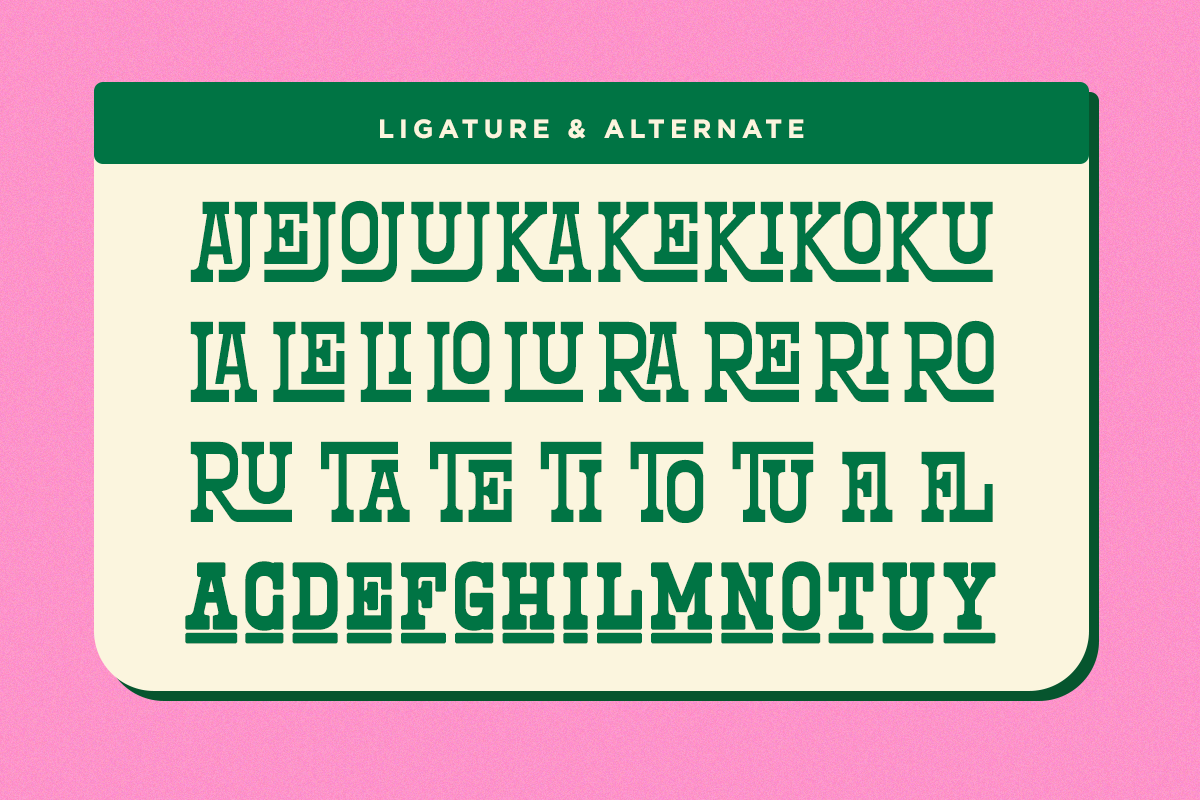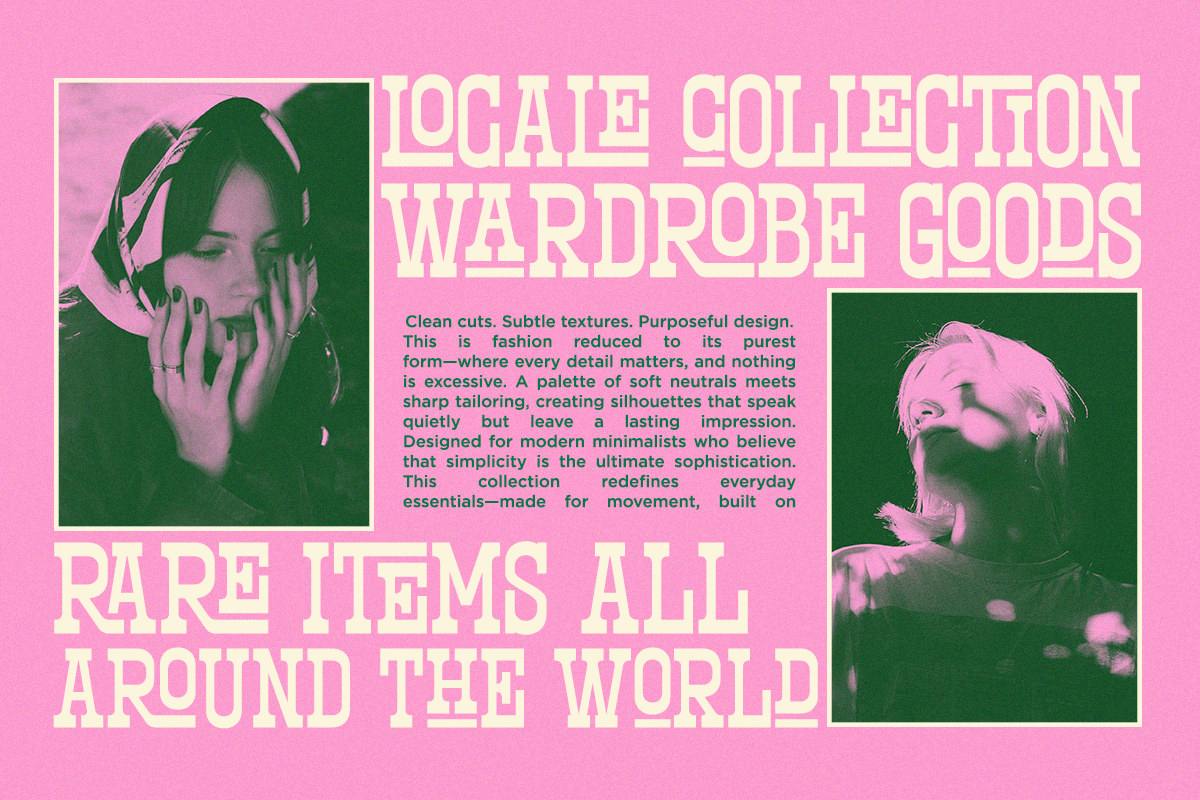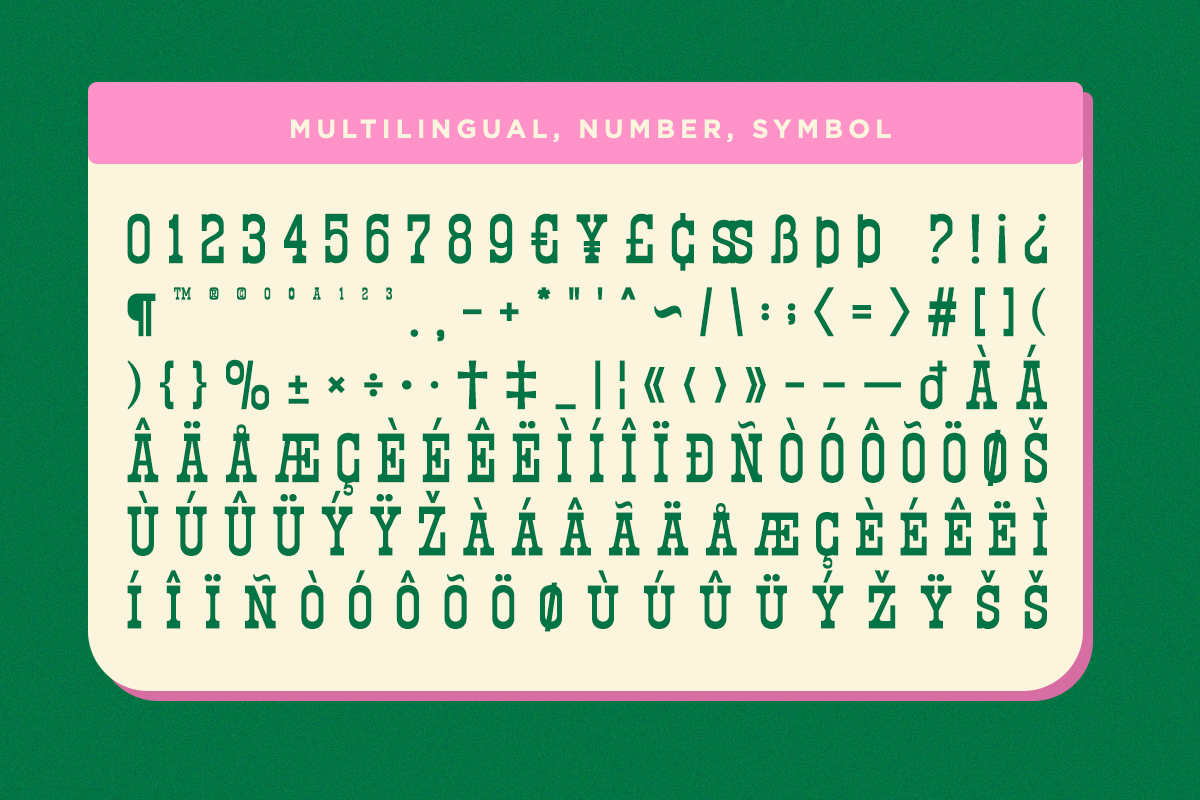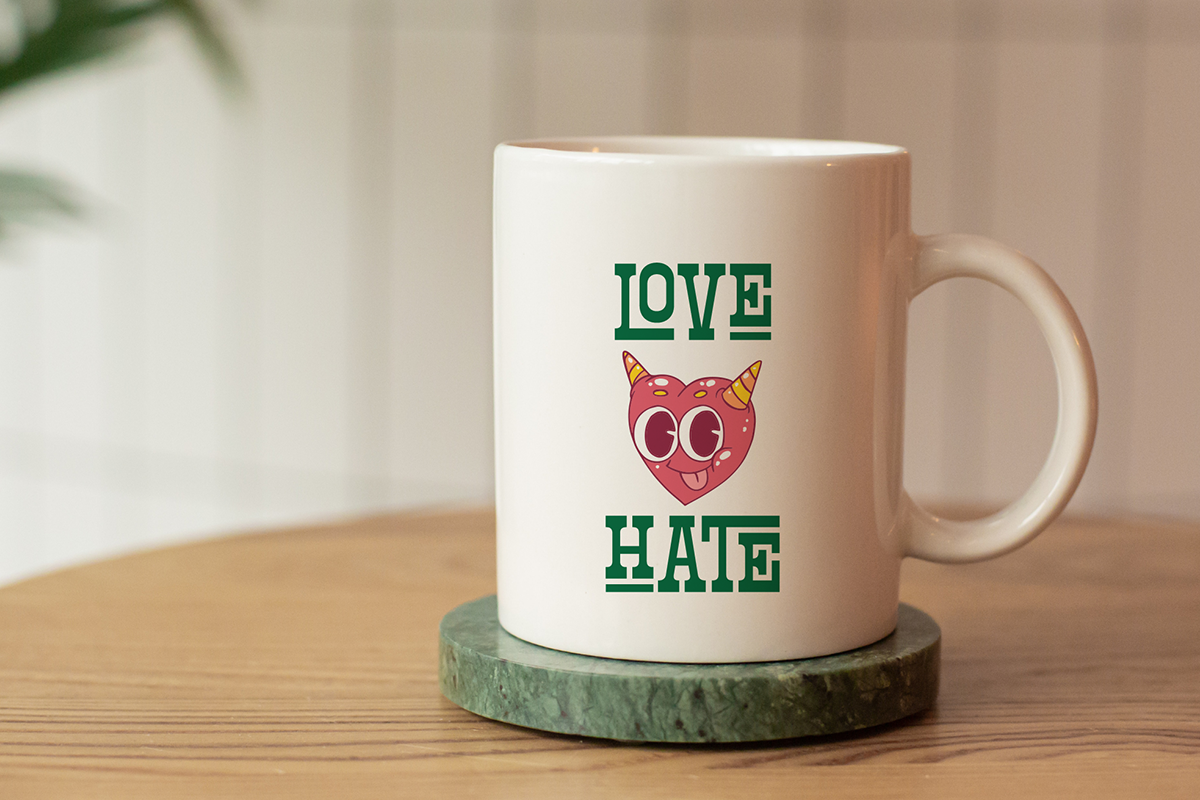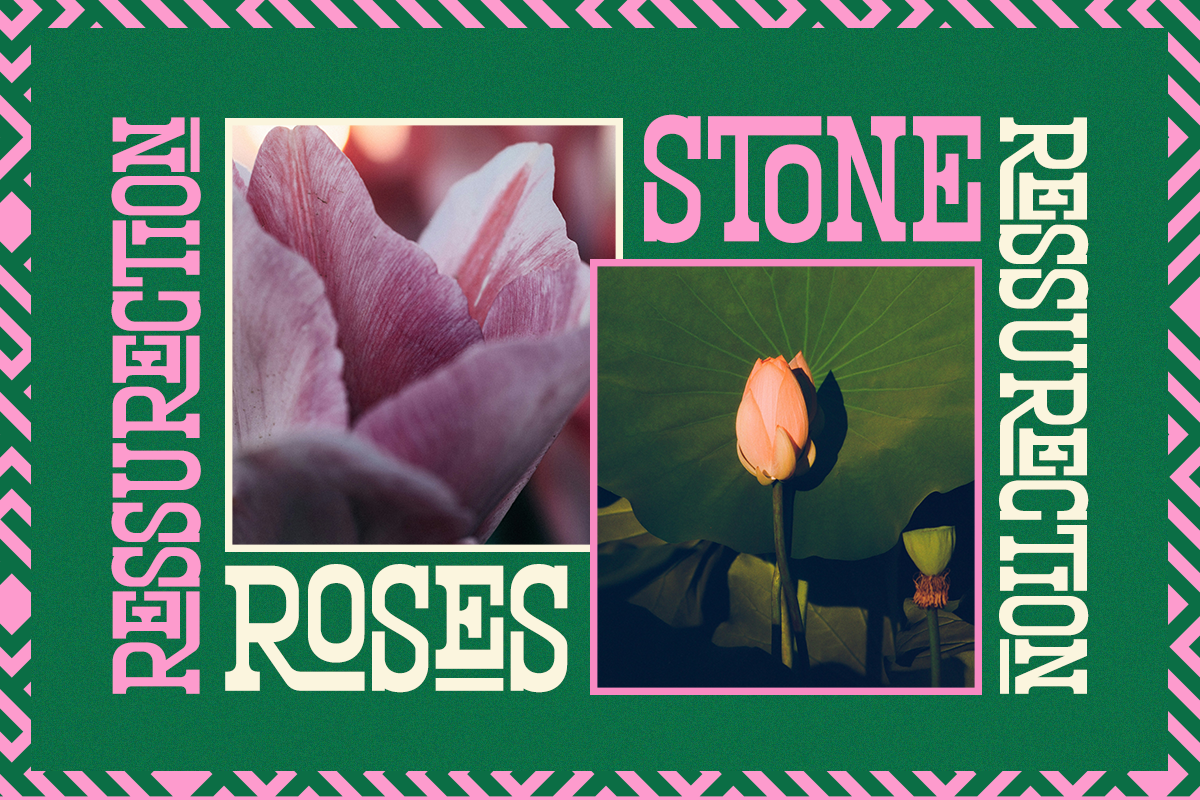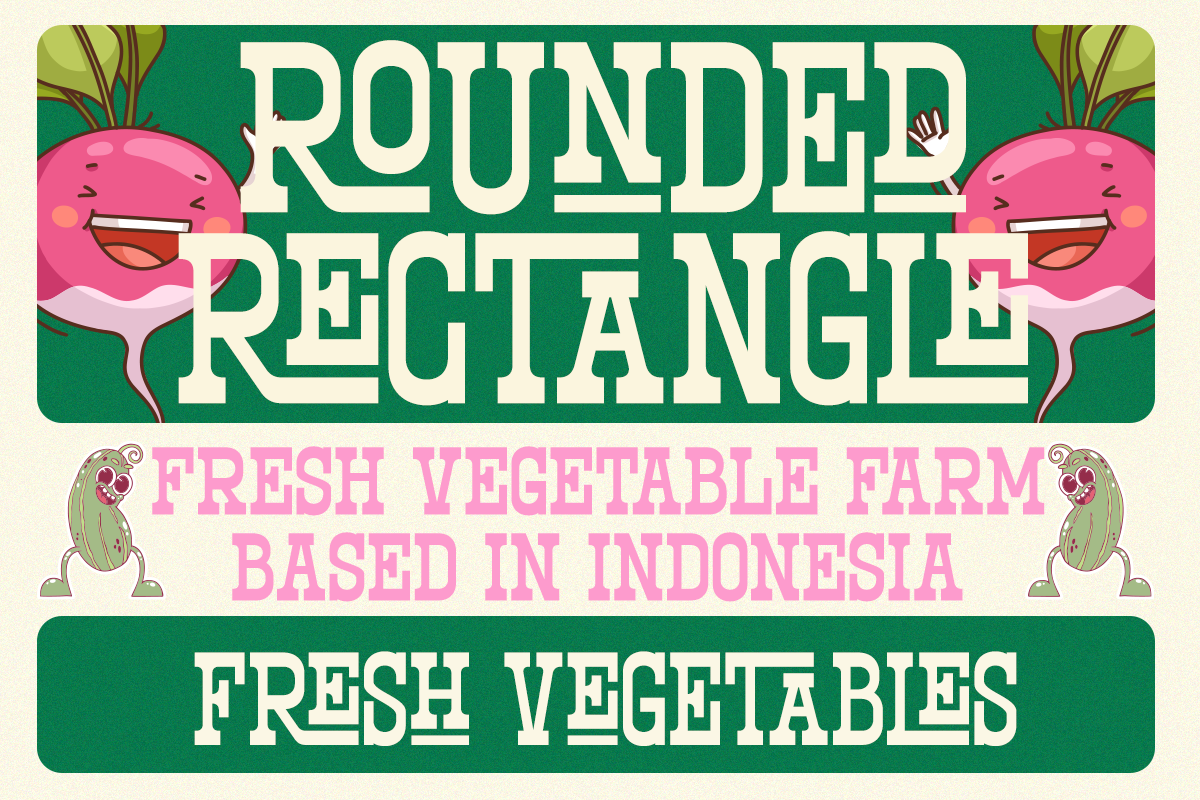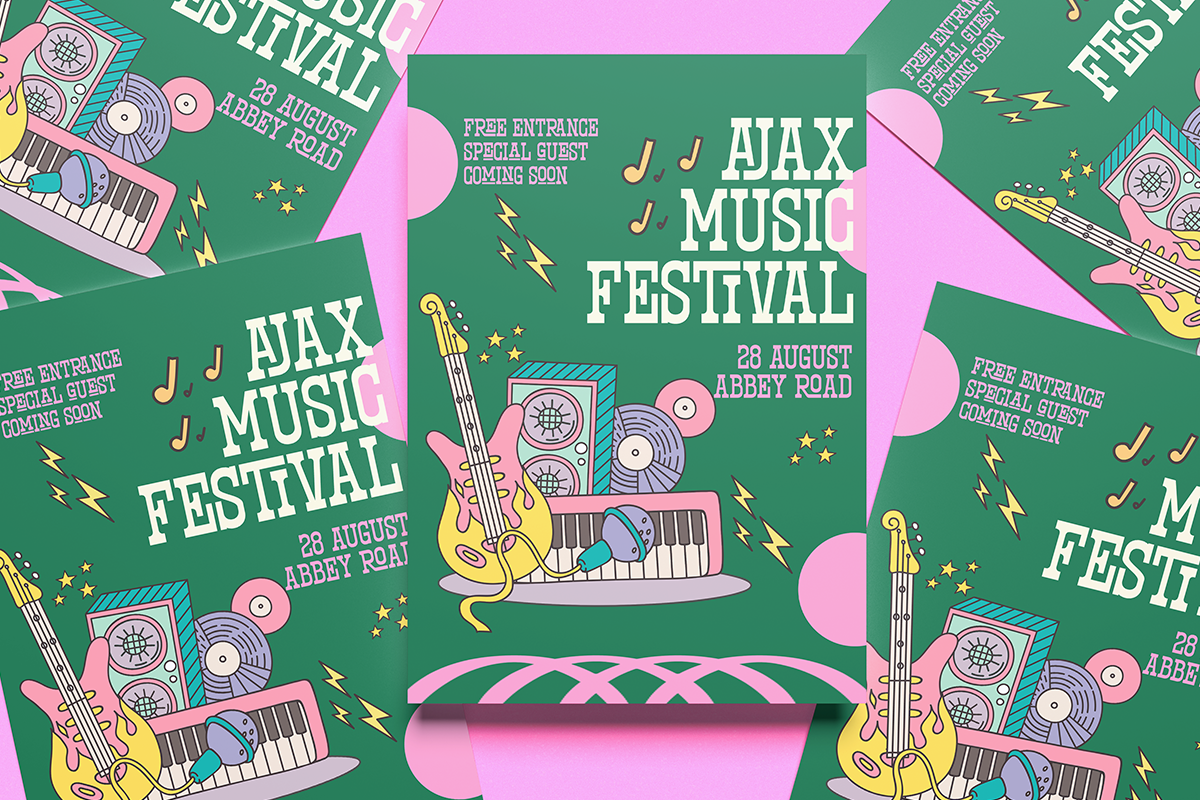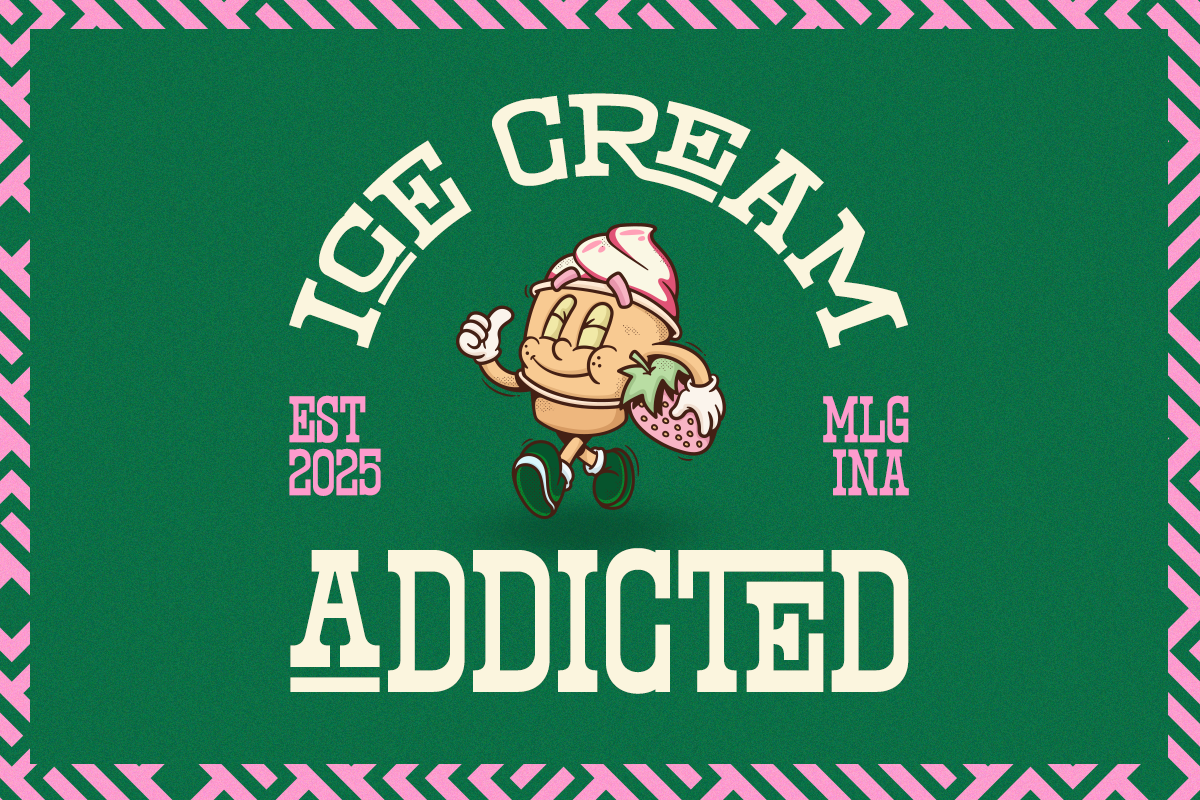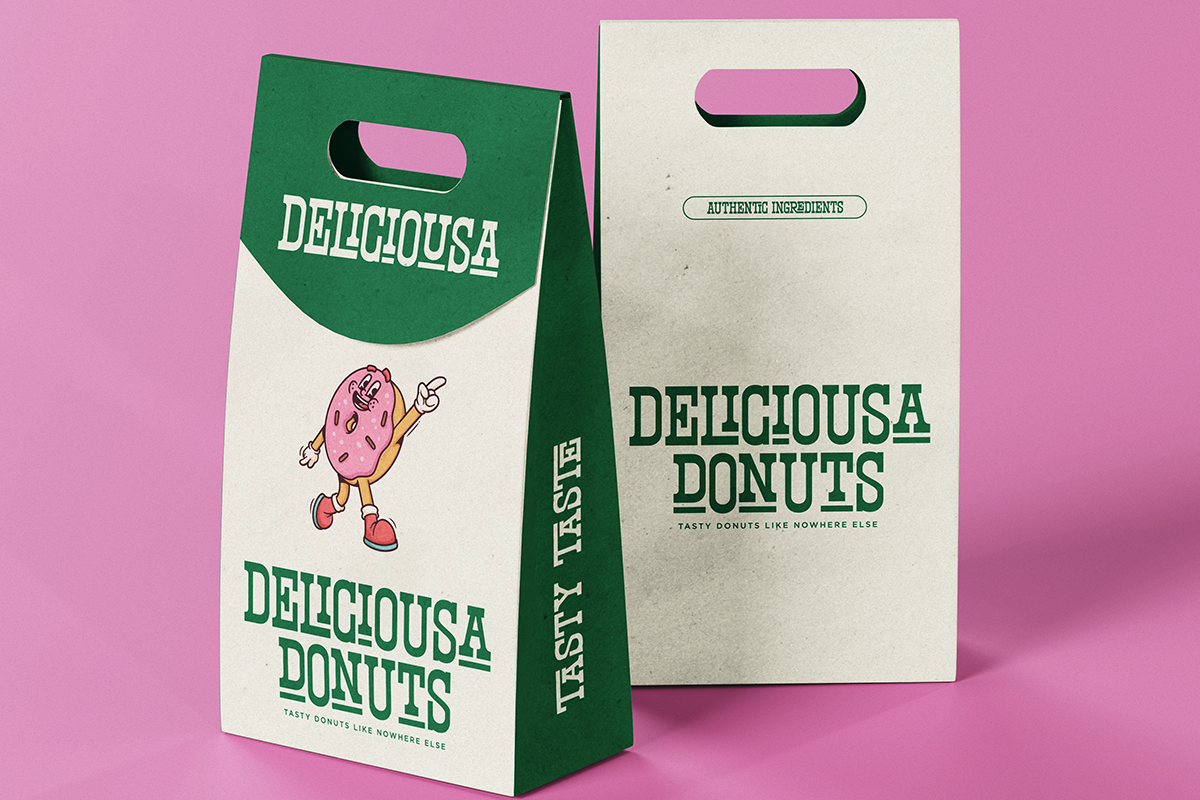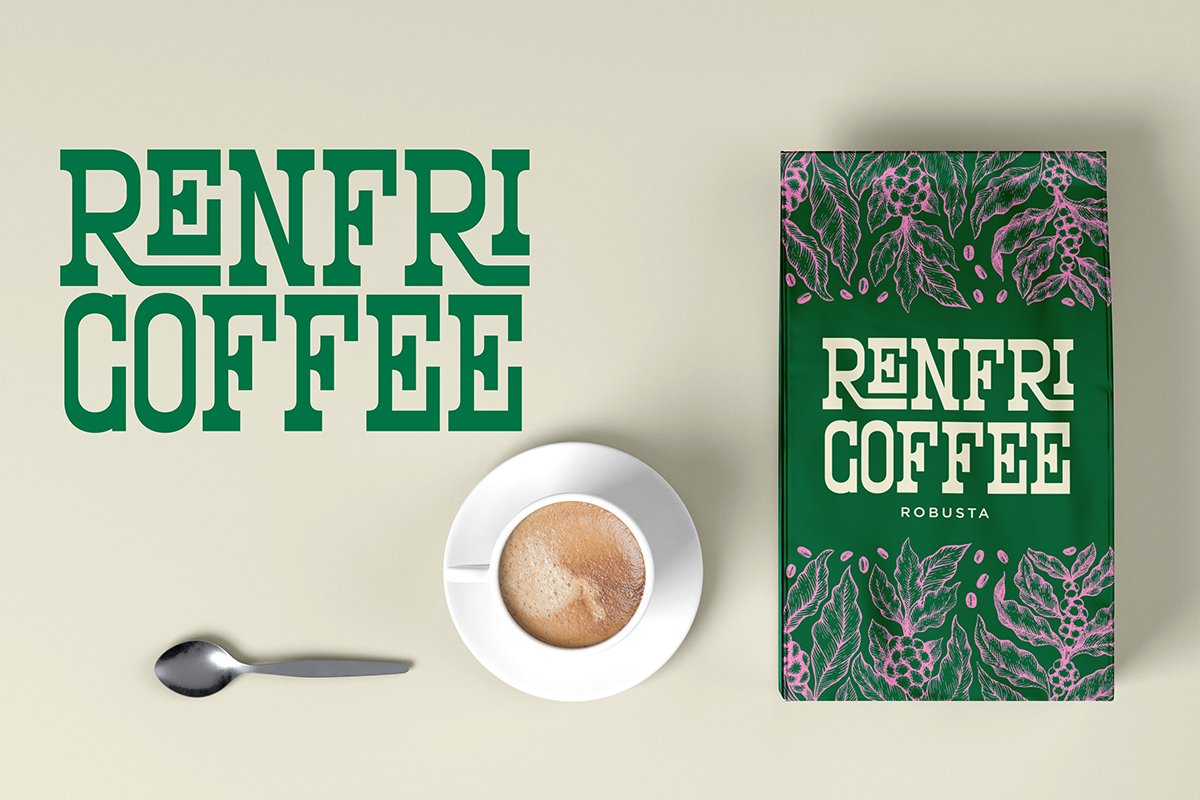
North Railway – A Western Slab Serif
Meet North Railway, a western-inspired slab serif font crafted with bold character and rugged appeal. It’s perfect for strong typographic statements — from posters and signage to vintage logos and packaging. With both regular and italic styles, this font brings an authentic old-west feel to modern design projects. Perfect For Posters, branding, product labels, packaging, editorial headlines, signage, apparel design, and vintage logo projects.
- Regular & Italic
- Stylistic A;ternates
- Stylistic Ligatures
- Numerals & punctuation